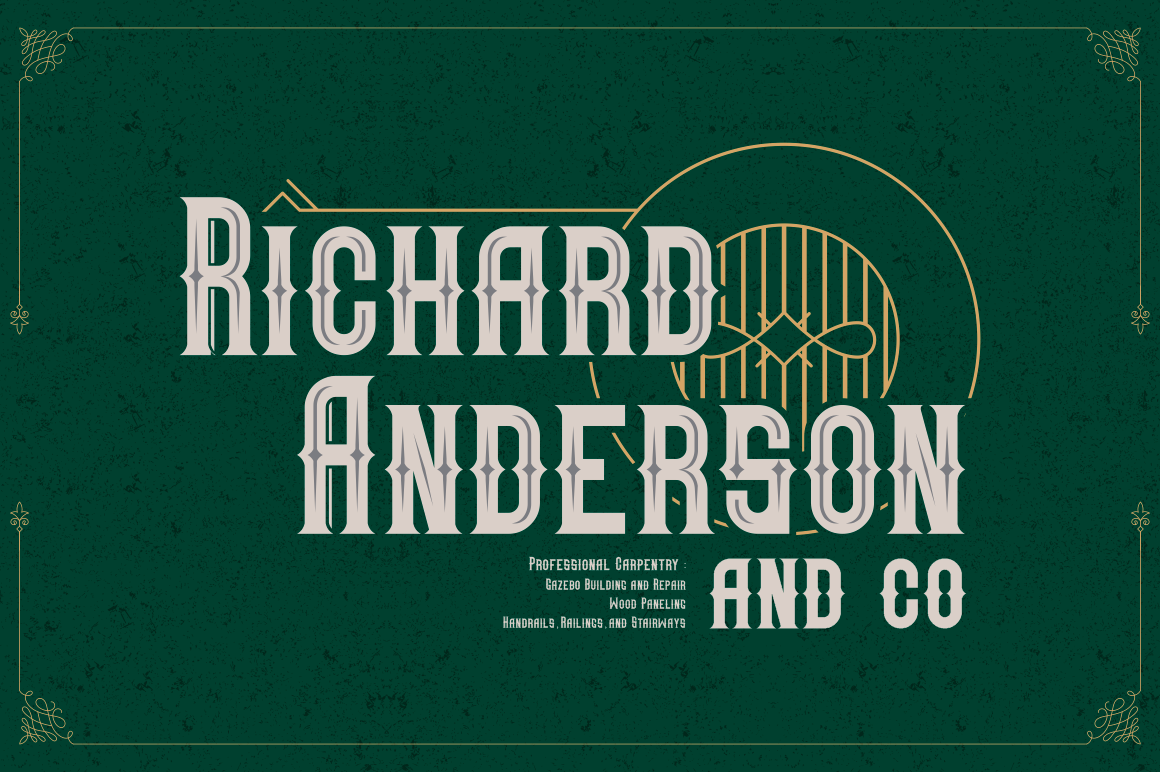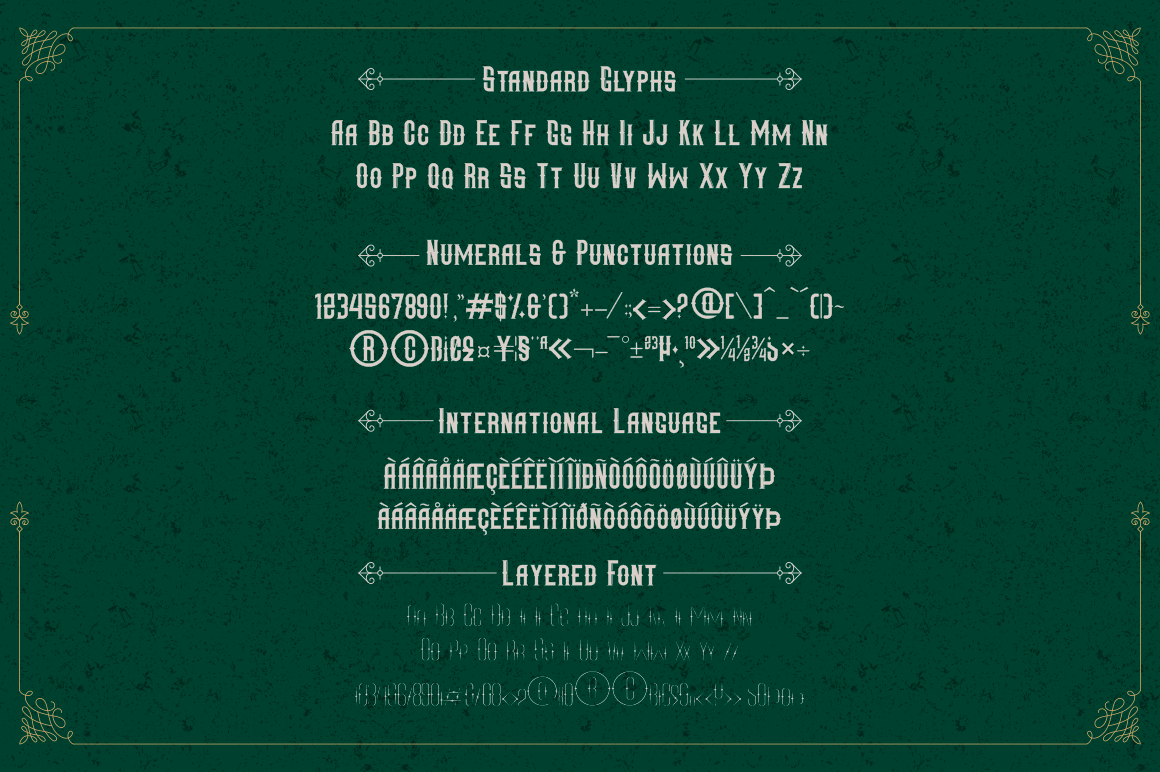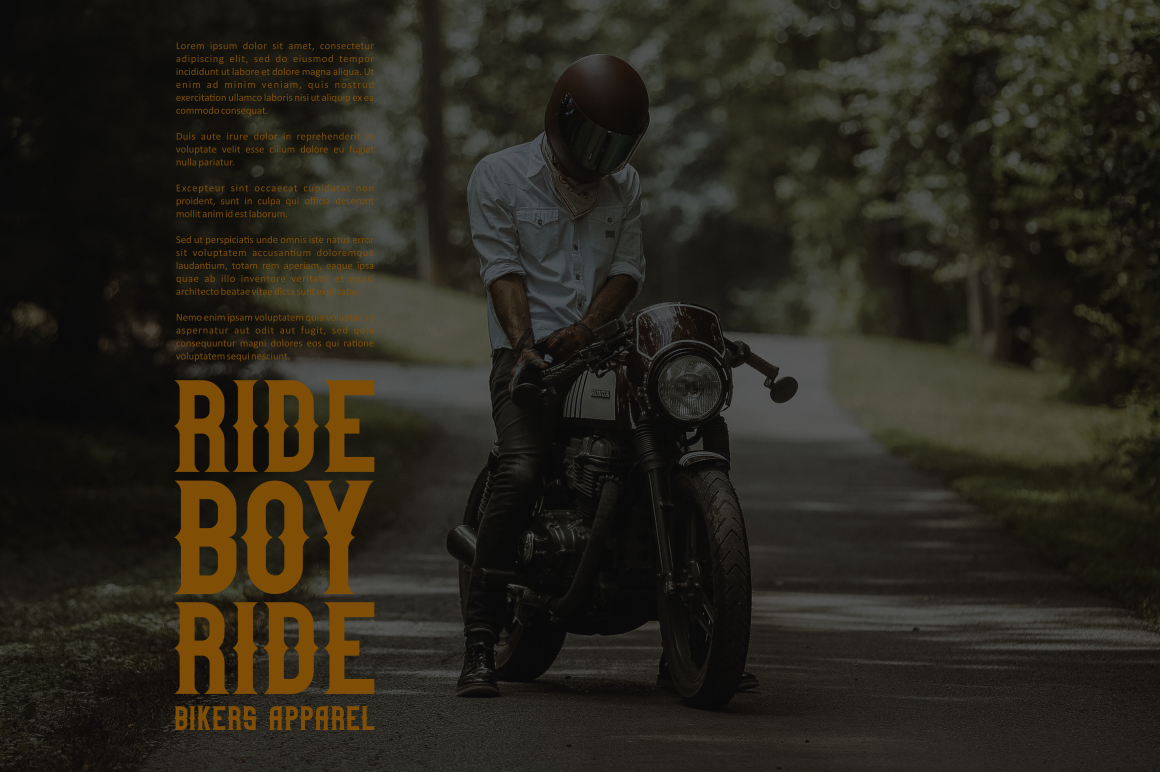
Mangarans Free Font
Mangarans Free Font is a victorian font. Perfect for logotype, headline, apparels, quotes, posters, labels with vintage, and exclusive feels. This free typeface was designed by a talented Raditya Pratama. If you like it don’t forget to check out the full version.